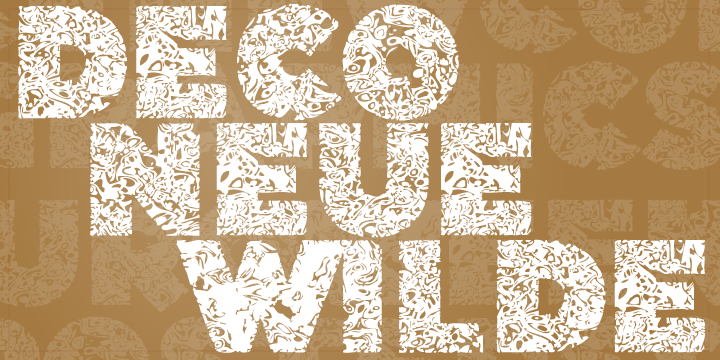
Deco Neue Wilde
About Deco Neue Wilde Font
Deco Neue Wilde is a filter font based on Deco. It sort of speaks for itself but it reminds me of a lava lamp and the countless shapes that you could waste time watching appear.